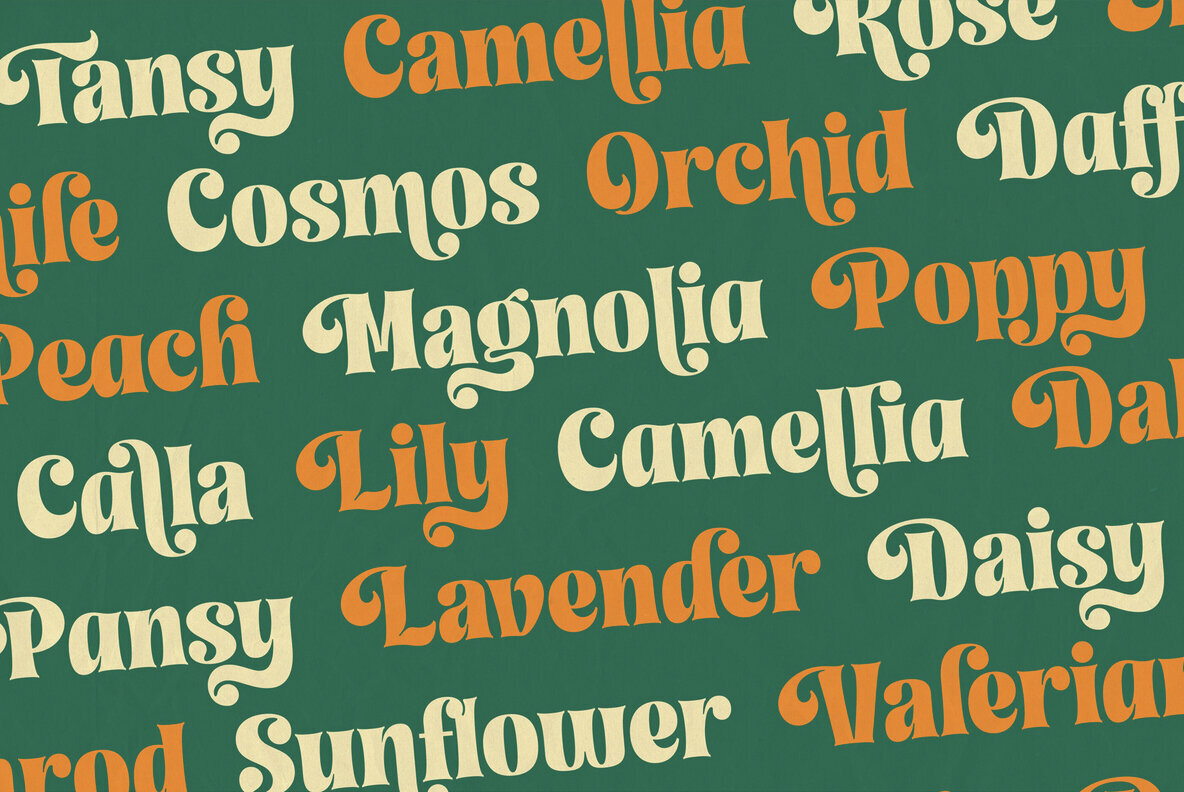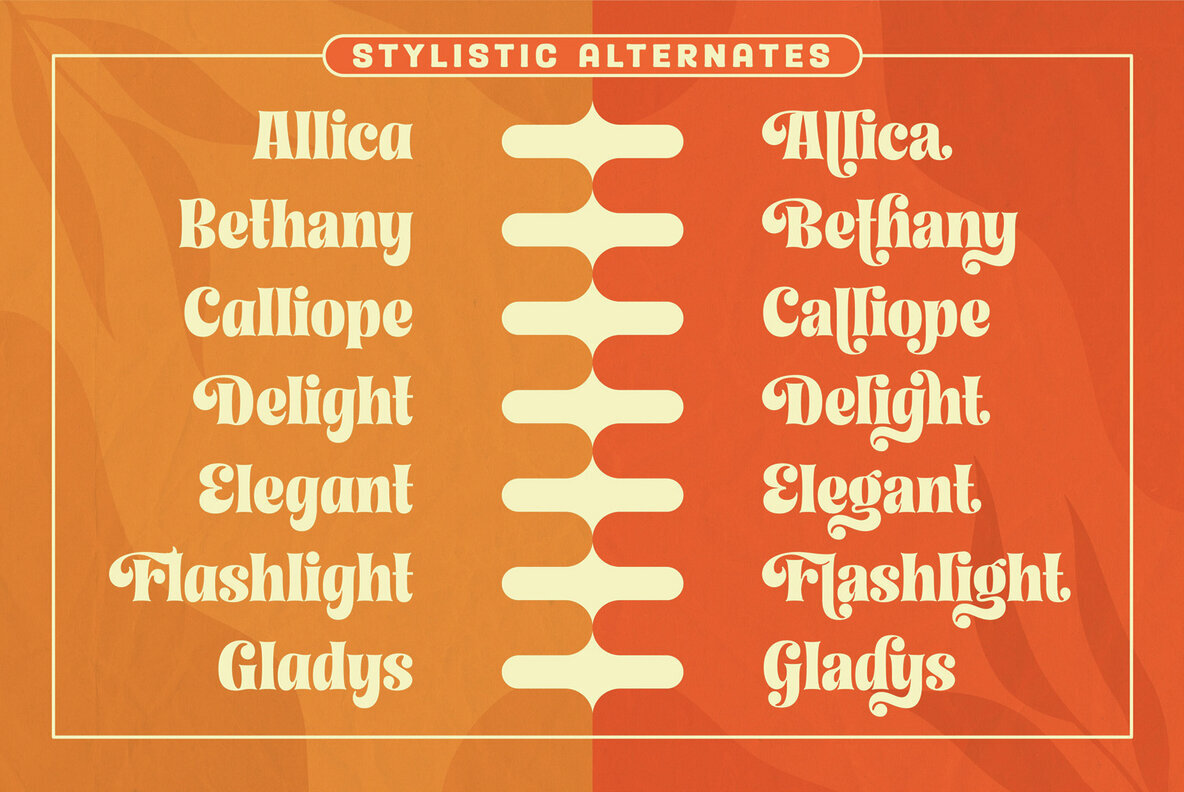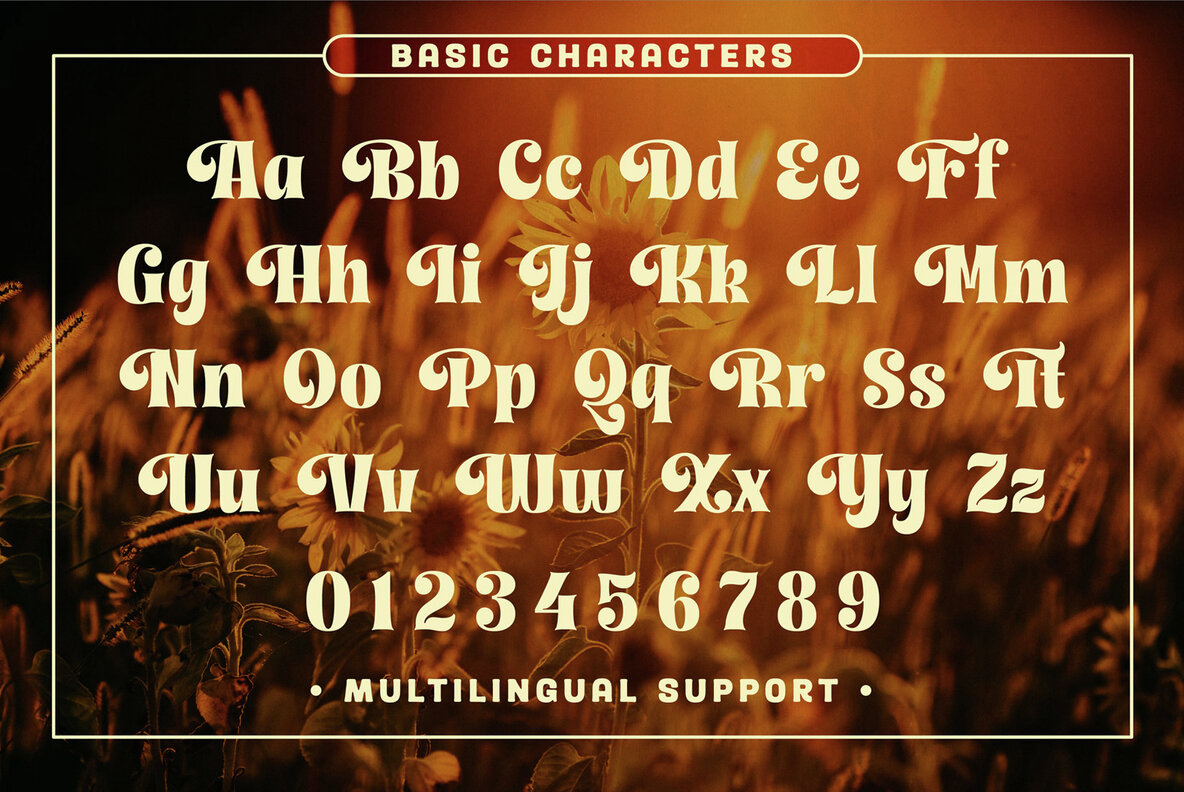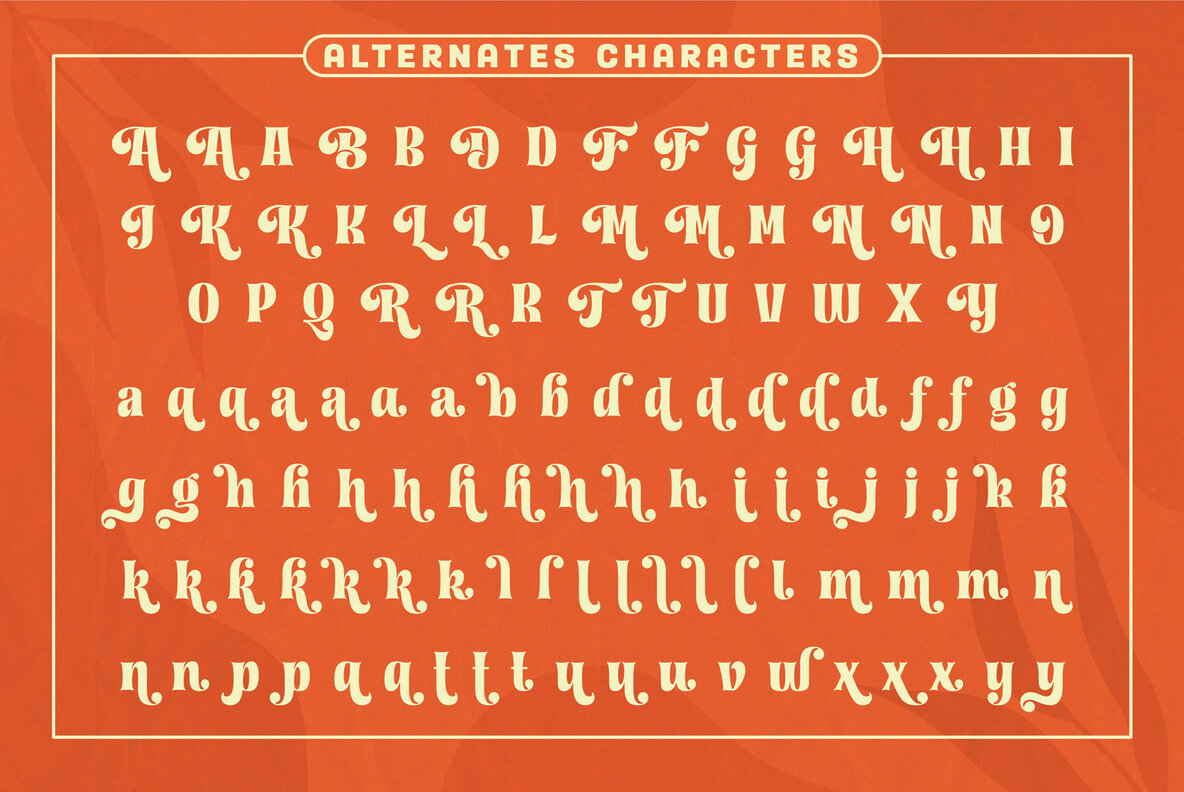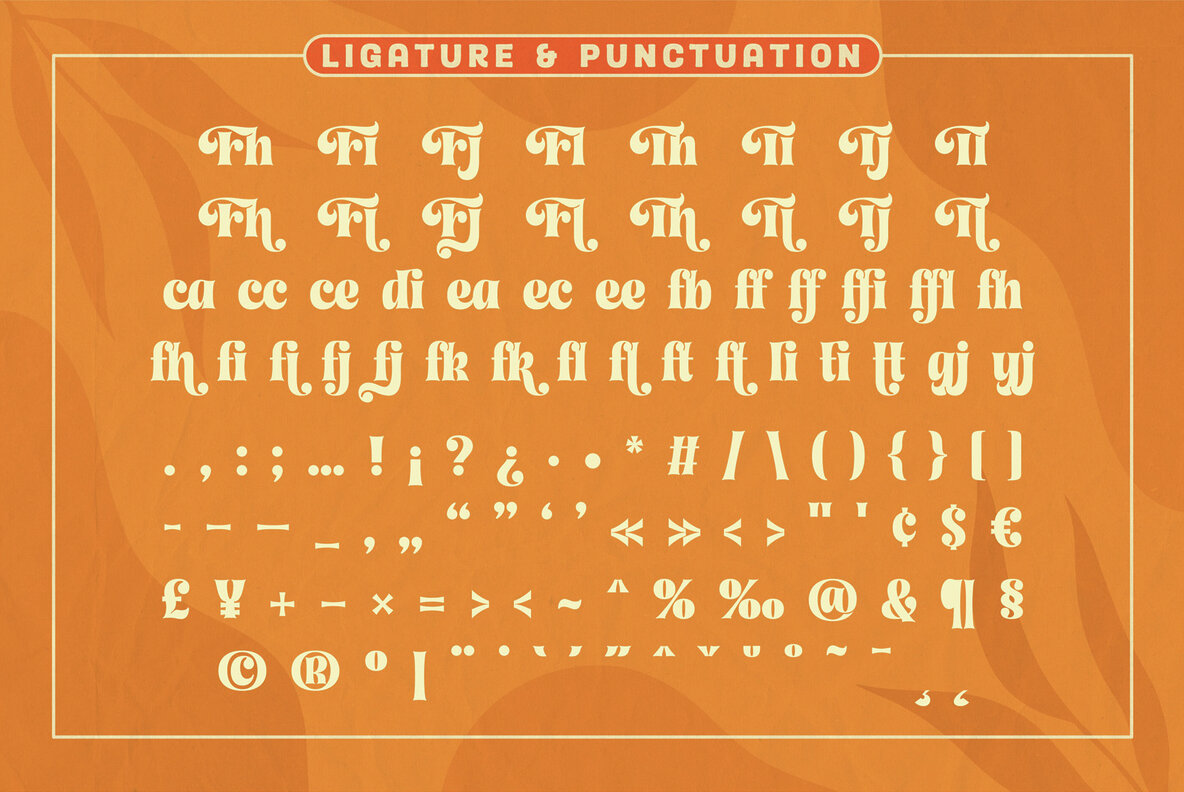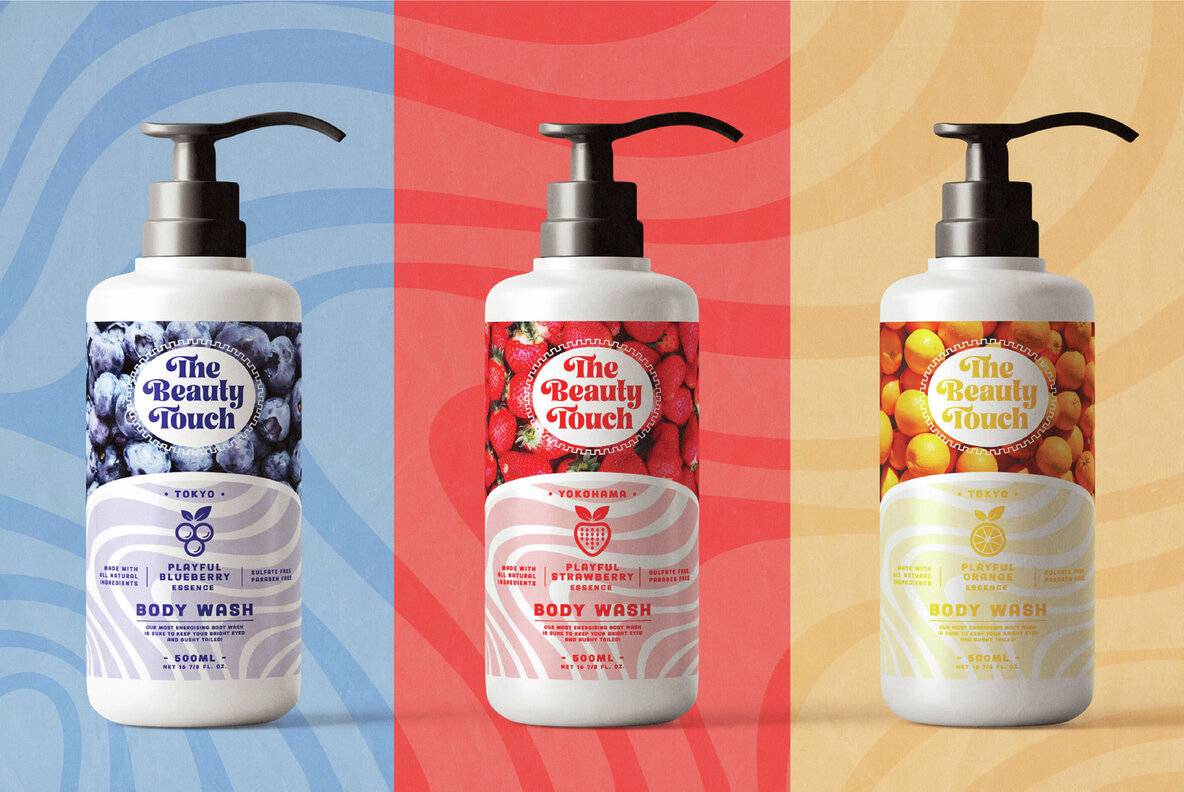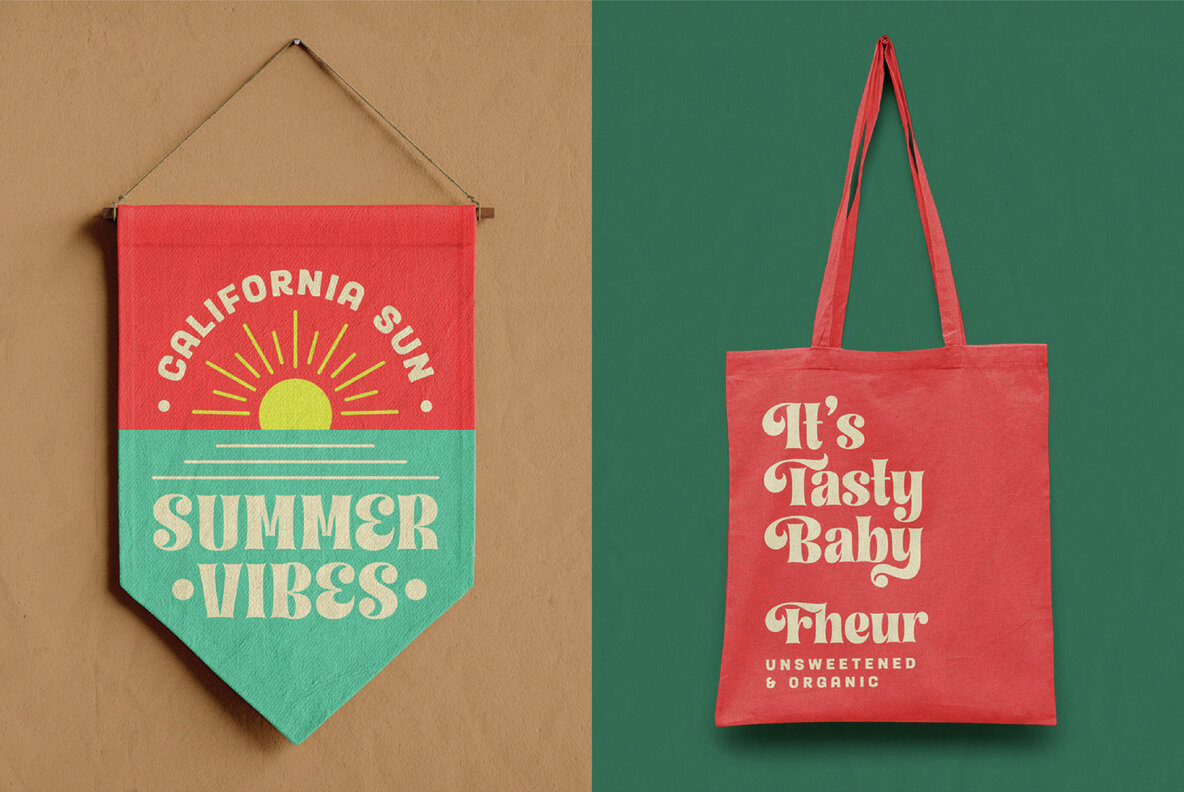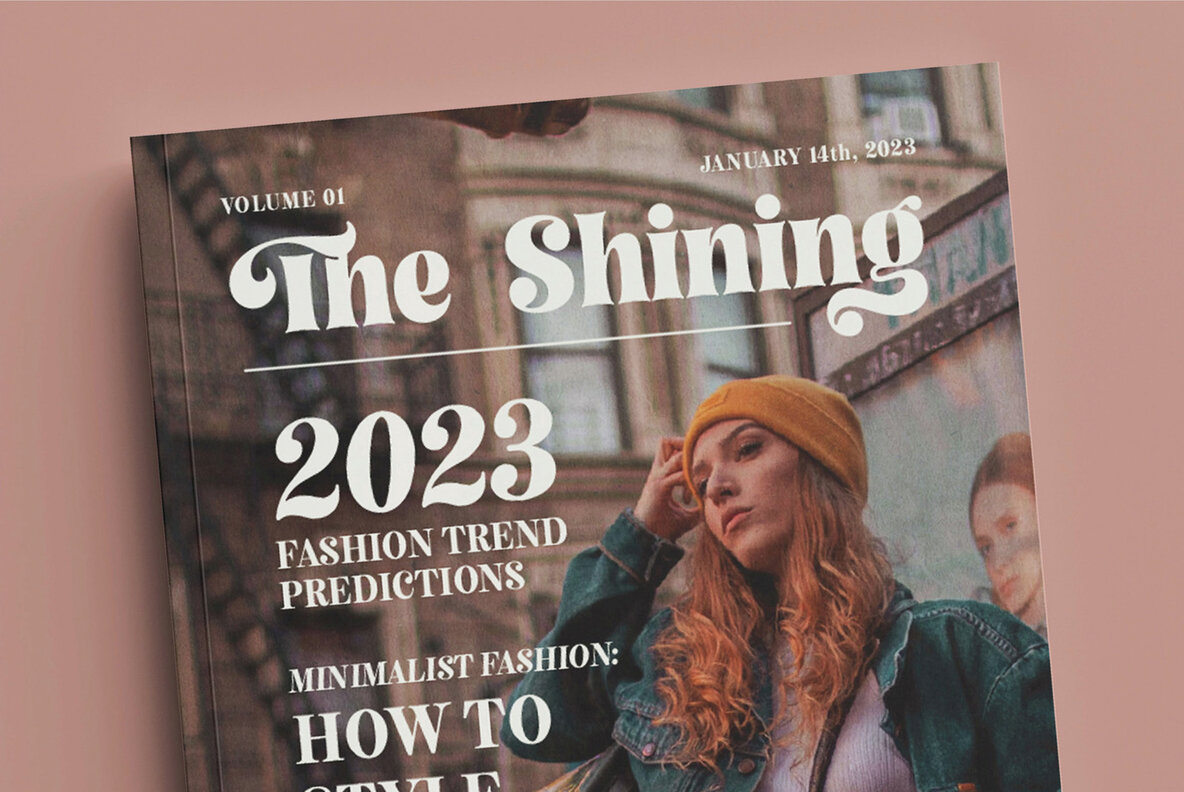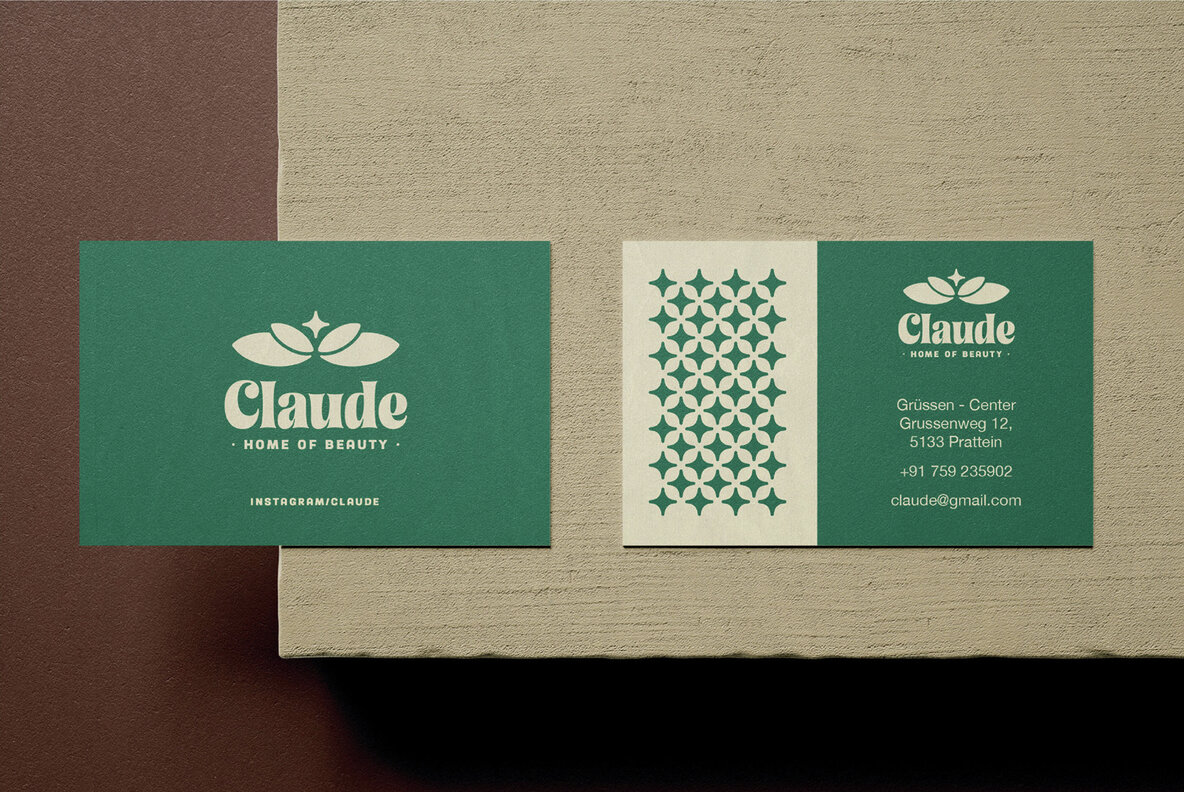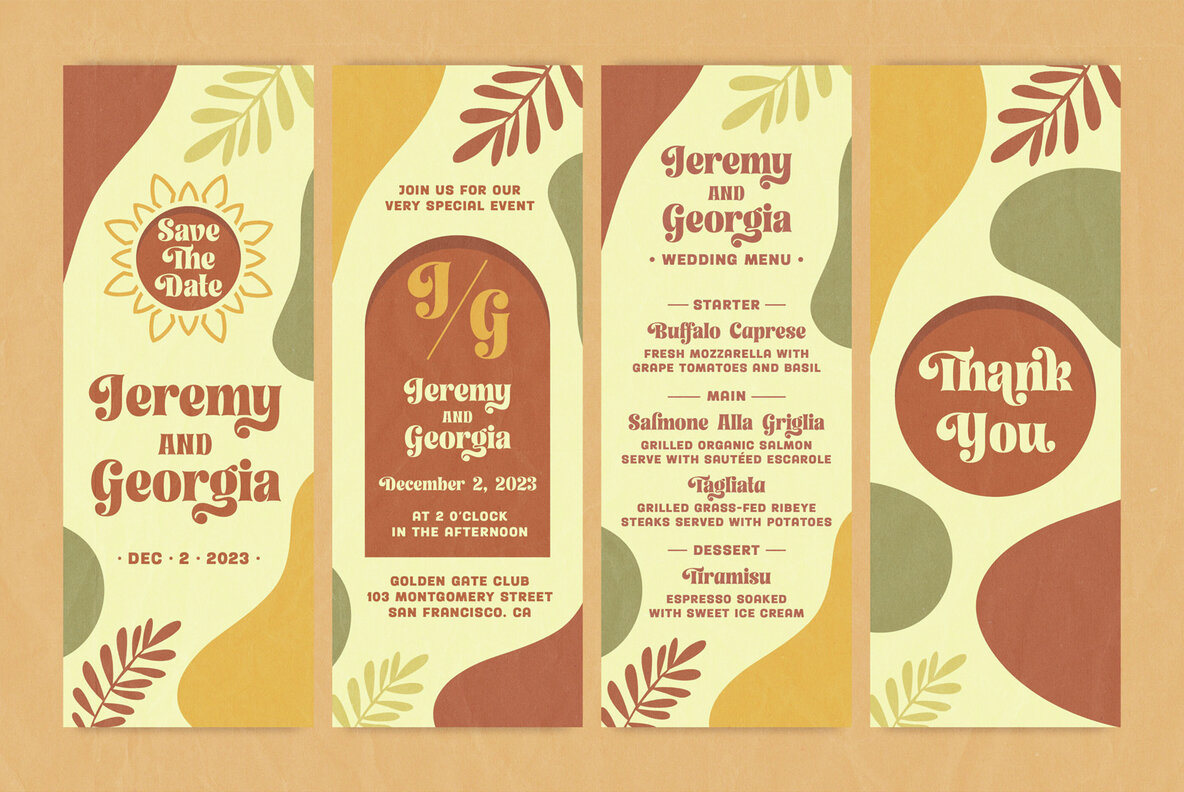
Feeling Things Font
Feeling Things Regular
Feeling Things is a modern serif font inspired by the retro typography of the 1970s. With over 375 glyphs, this font includes multilingual support and offers OpenType features such as stylistic alternates, contextual alternates, and ligatures, enabling versatile typographic designs. This font is perfect for a wide array of uses, including logos, invitations, labels, magazines, books, greeting and wedding cards, packaging, fashion, makeup, stationery, novels, and various advertising purposes.Feeling Things: Modern Serif Font with Retro Influence